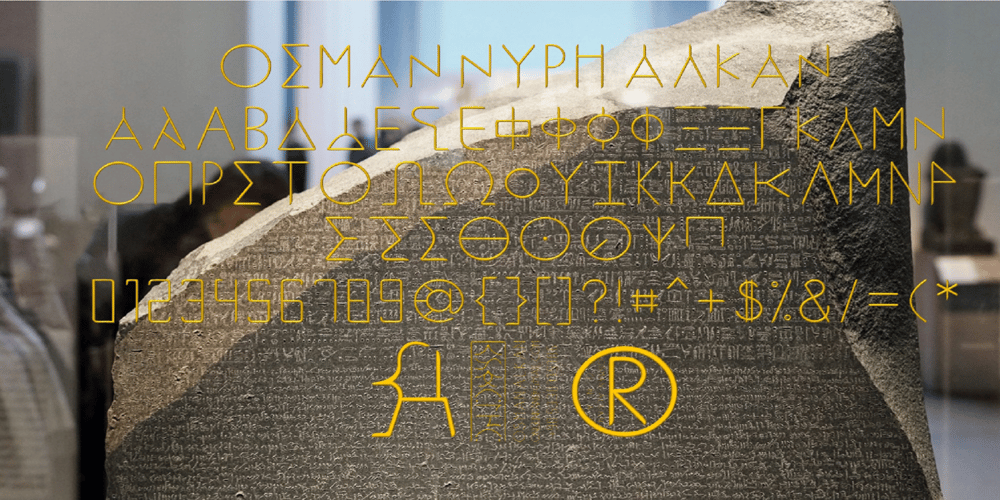
Ongunkan Rosetta Stone Font Family was designed by Osman Nuri ALKAN and published by Runic World Tamgacı. Ongunkan Rosetta Stone contains 1 styles and family package options. The Rosetta Stone, or Rashid Stone, was accidentally found by a French soldier during an excavation in the fortification of Egypt.The stone was inscribed in three languages, intended to be sent to three major Egyptian temples. These languages are: Demotic (the language used by the people in Egypt), Hieroglyphic and Ancient Greek. This font contains ancient greek.